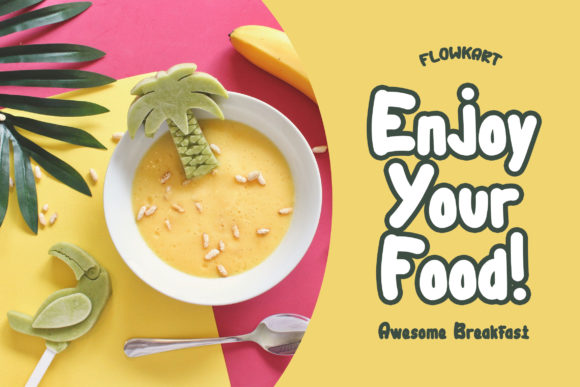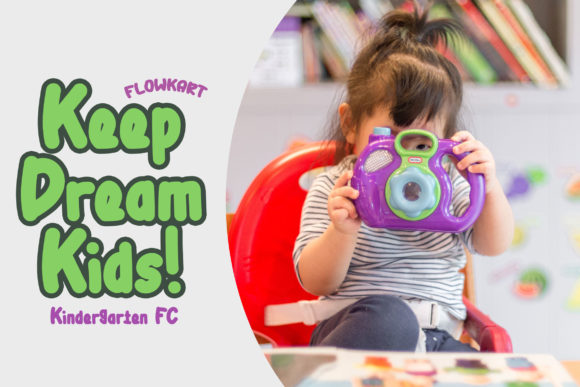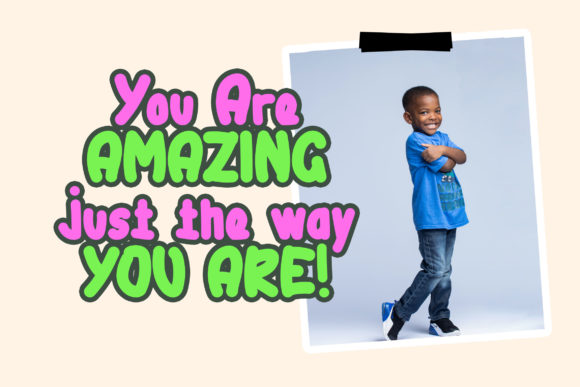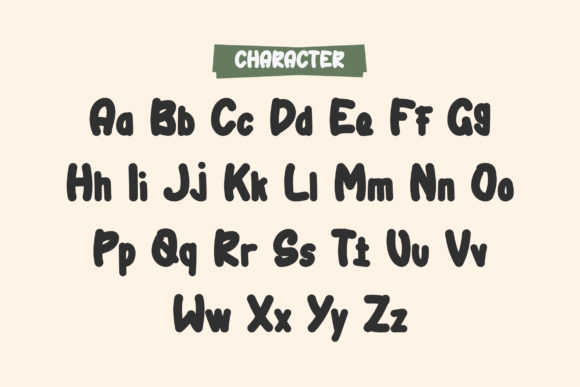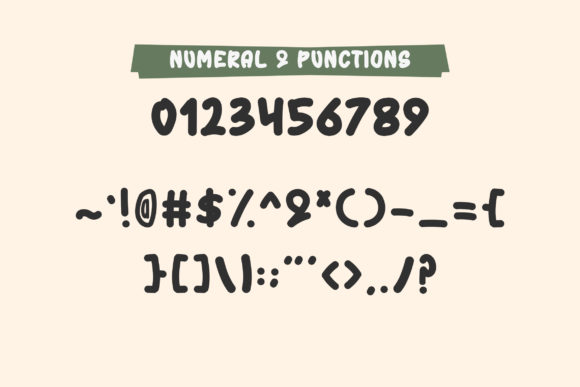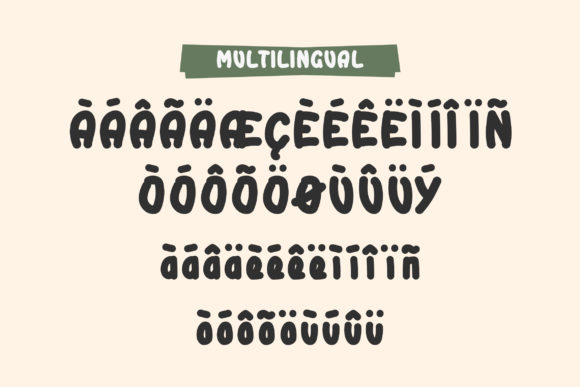
The Ultimate Guide to Flowkart Font: A Hand-Drawn, Chunky Lettered Display Font
An Honest Review of Flowkart Font
So, what makes Flowkart Font so special? Let’s dive into the good stuff!
- ✨ Hand-drawn, chunky lettered display font: Flowkart’s unique, hand-crafted style gives it a distinct personality that’s perfect for making a statement.
- ✅ Versatile: This font is incredibly versatile and can be used on various projects, from apparel and logos to album covers and social media graphics.
- ✅ Easy to read: Despite its chunky style, Flowkart is surprisingly easy to read, even in smaller sizes.
Now, let’s talk about a few quirks:
- 🤔 Limited use in body text: While Flowkart is amazing for headlines and titles, it’s not the best choice for body text. It’s a display font, after all!
- ⚠️ Kerning issues: As with any font, you might encounter some kerning issues, especially when using it in all caps. Just a heads up!
- Experiment with OpenType features like ligatures and stylistic alternates to add some flair to your text.
The Story Behind Flowkart Font
Flowkart Font was designed with the intention of creating a versatile, display font that would inspire creativity. Its chunky, hand-drawn style is meant to evoke a sense of playfulness and friendliness. Whether you’re a designer or a hobbyist, Flowkart is here to help you make a statement.
| What type of projects is Flowkart Font best suited for? | Flowkart Font is perfect for apparel projects, logos, album covers, branding, magazine titles, and social media graphics. |
| Is Flowkart Font available in different weights or styles? | Currently, Flowkart Font is available in a single weight. However, its versatility and range of OpenType features make it easy to adapt to different design needs. |
Flowkart Font is a beautiful, hand-drawn display font that’s sure to elevate your designs. With its versatility and range of features, it’s perfect for designers, crafters, and creative hobbyists alike. Give it a try and see what amazing creations you can come up with!